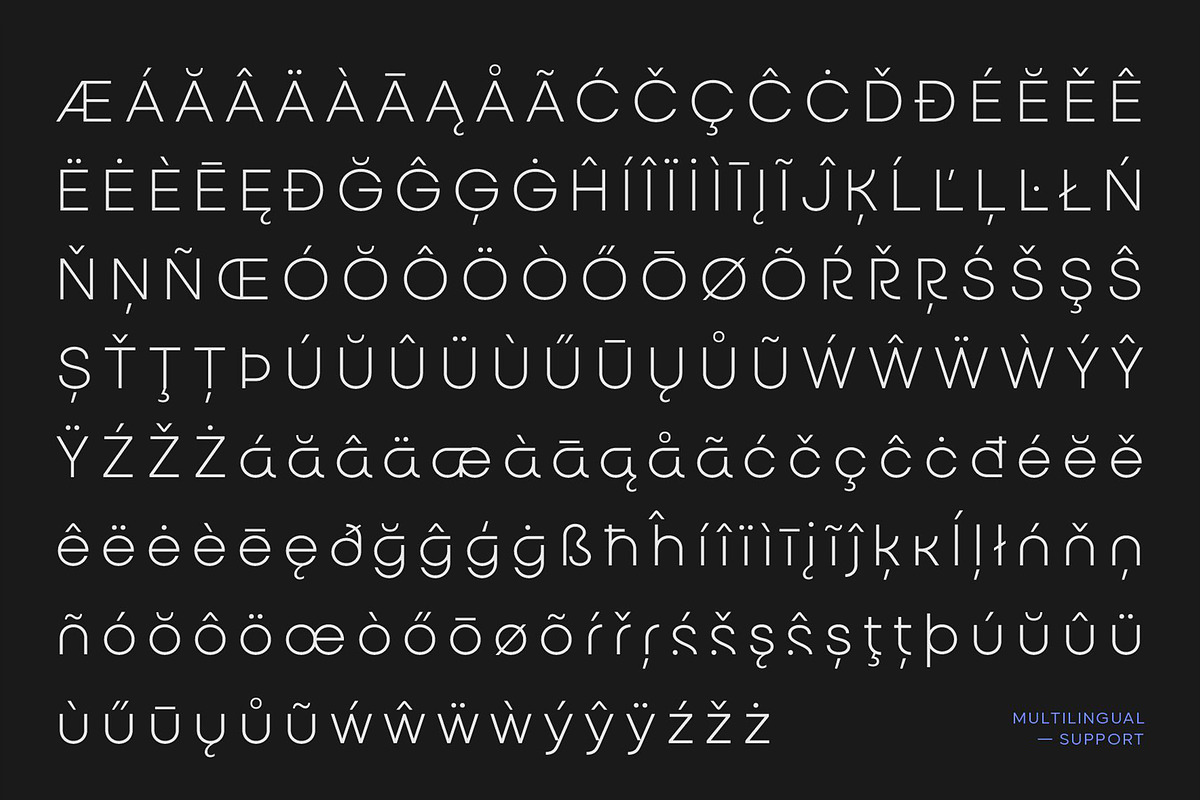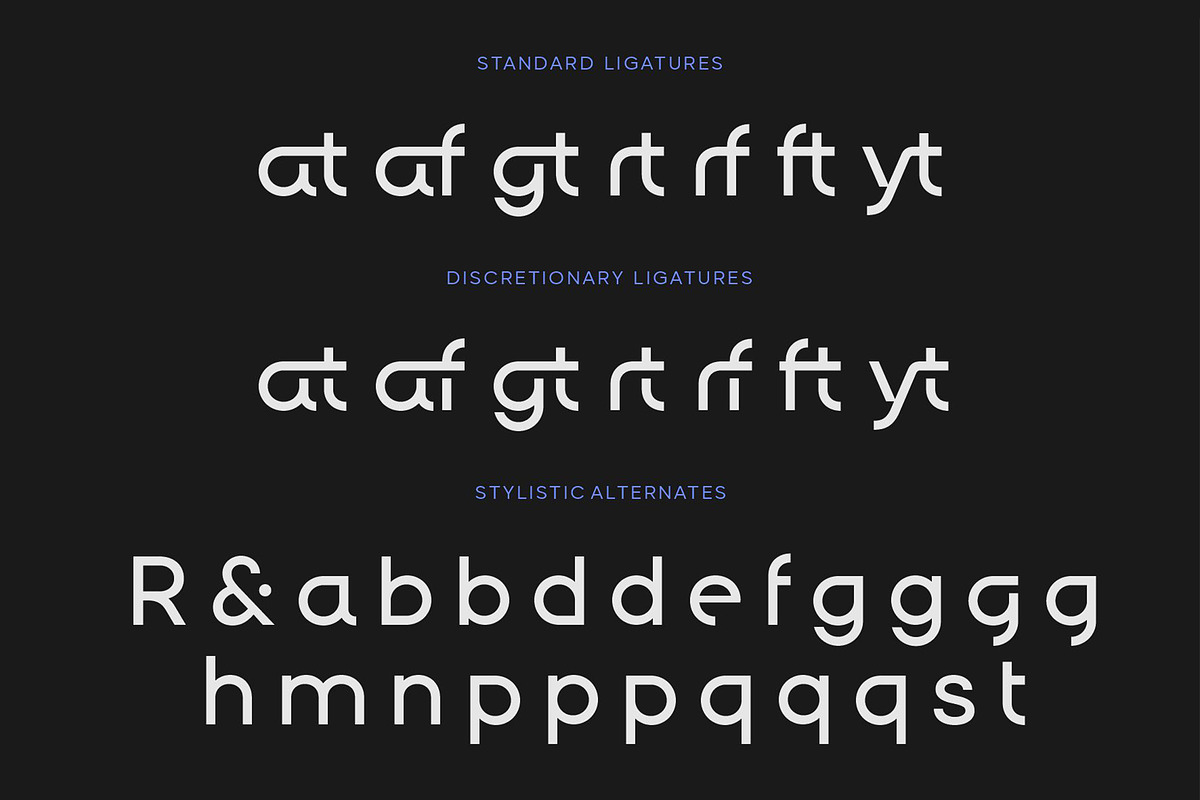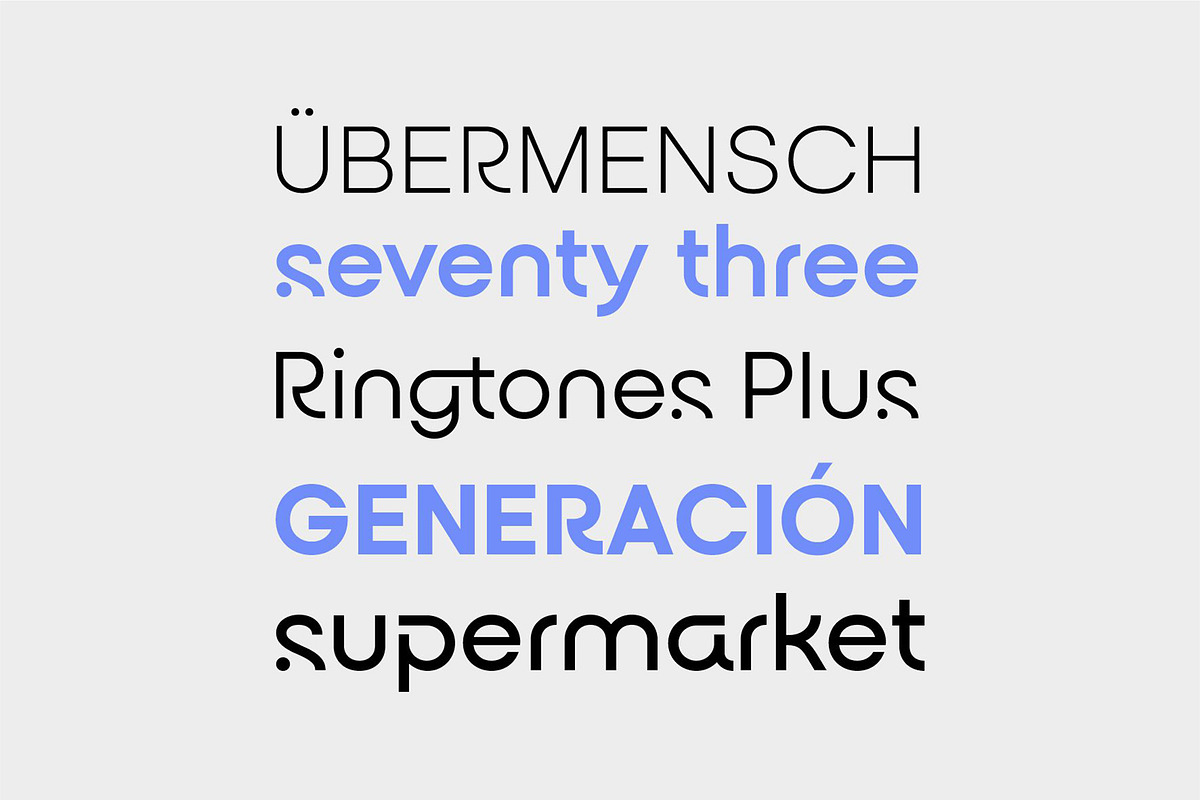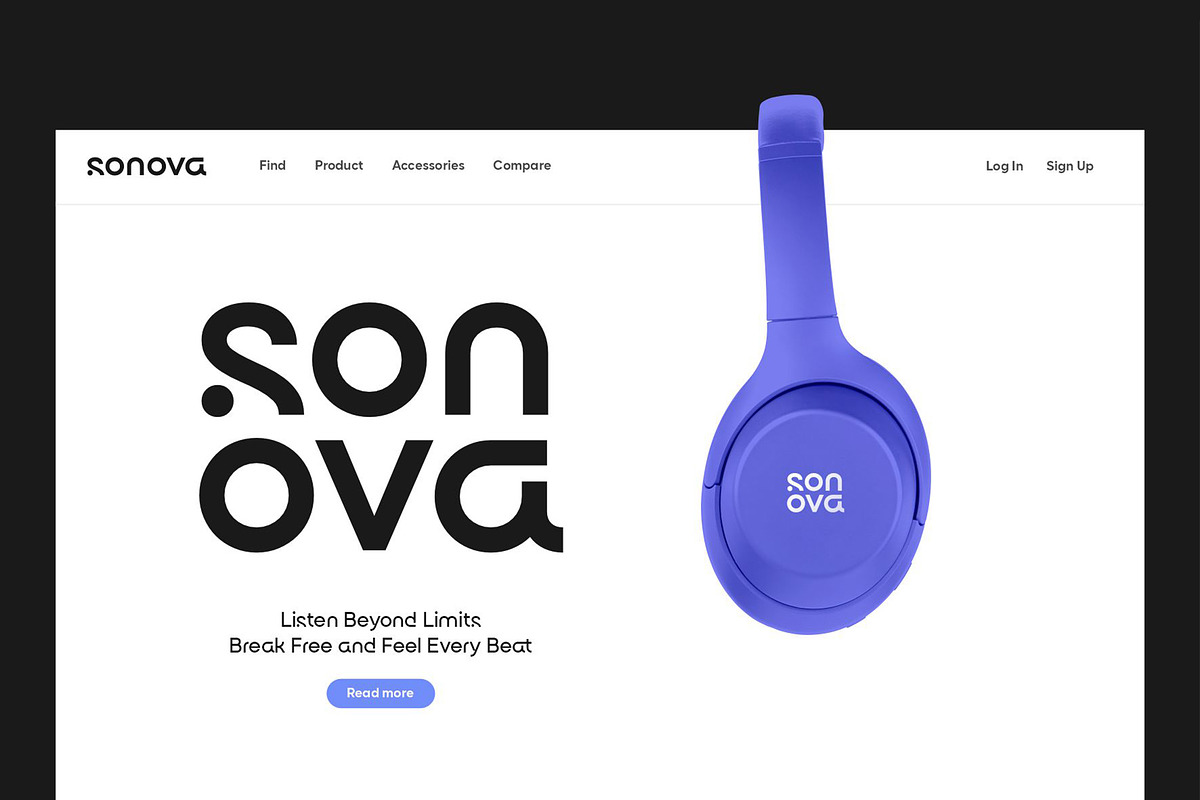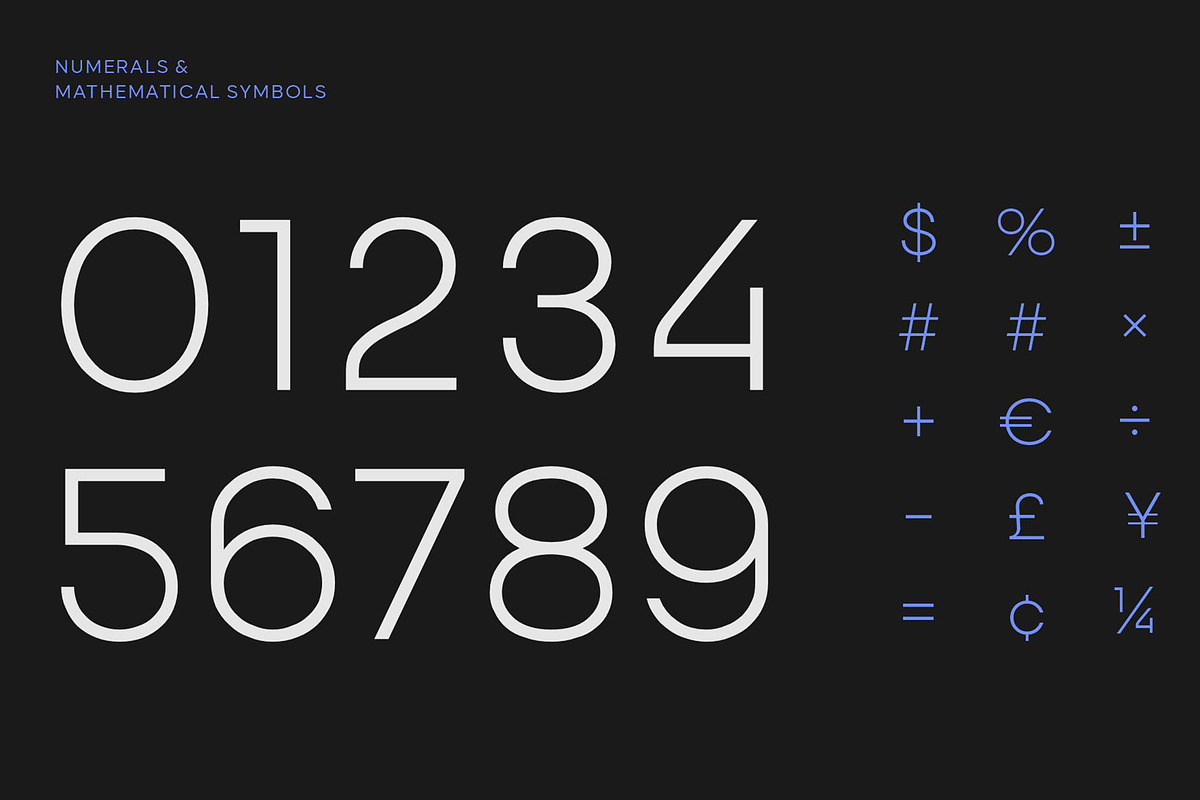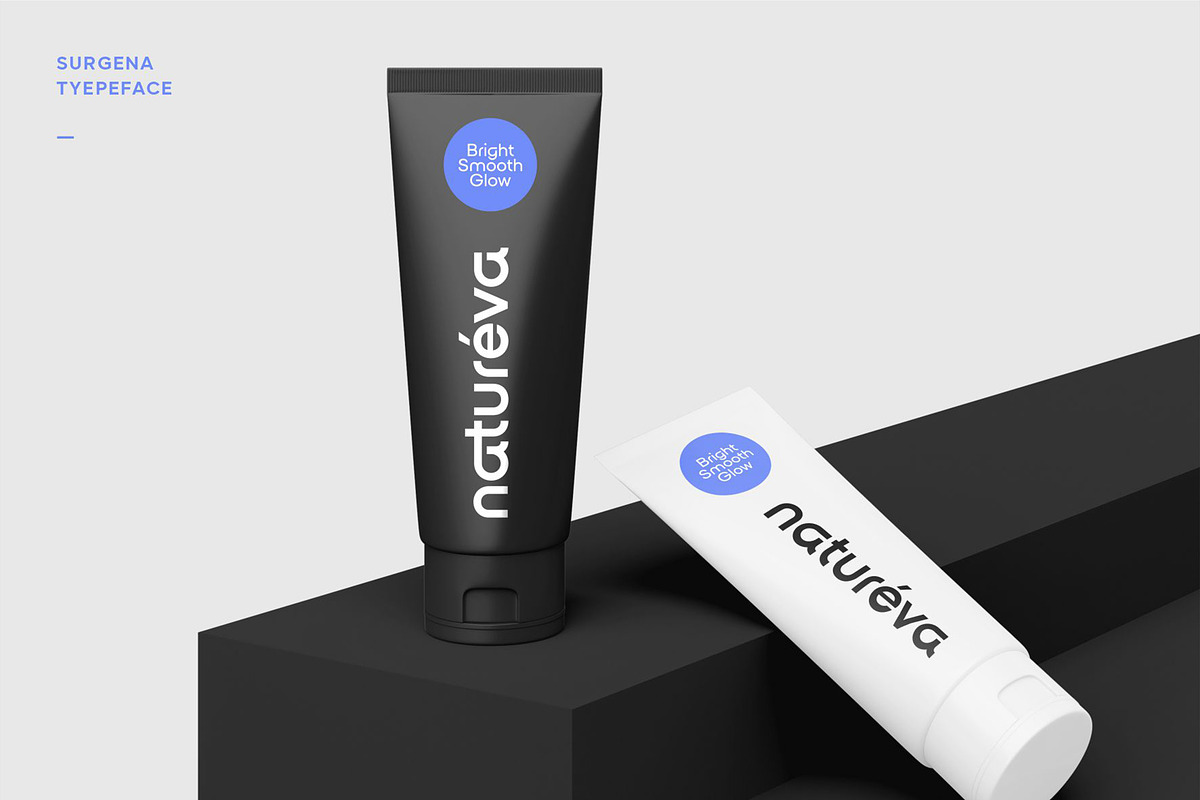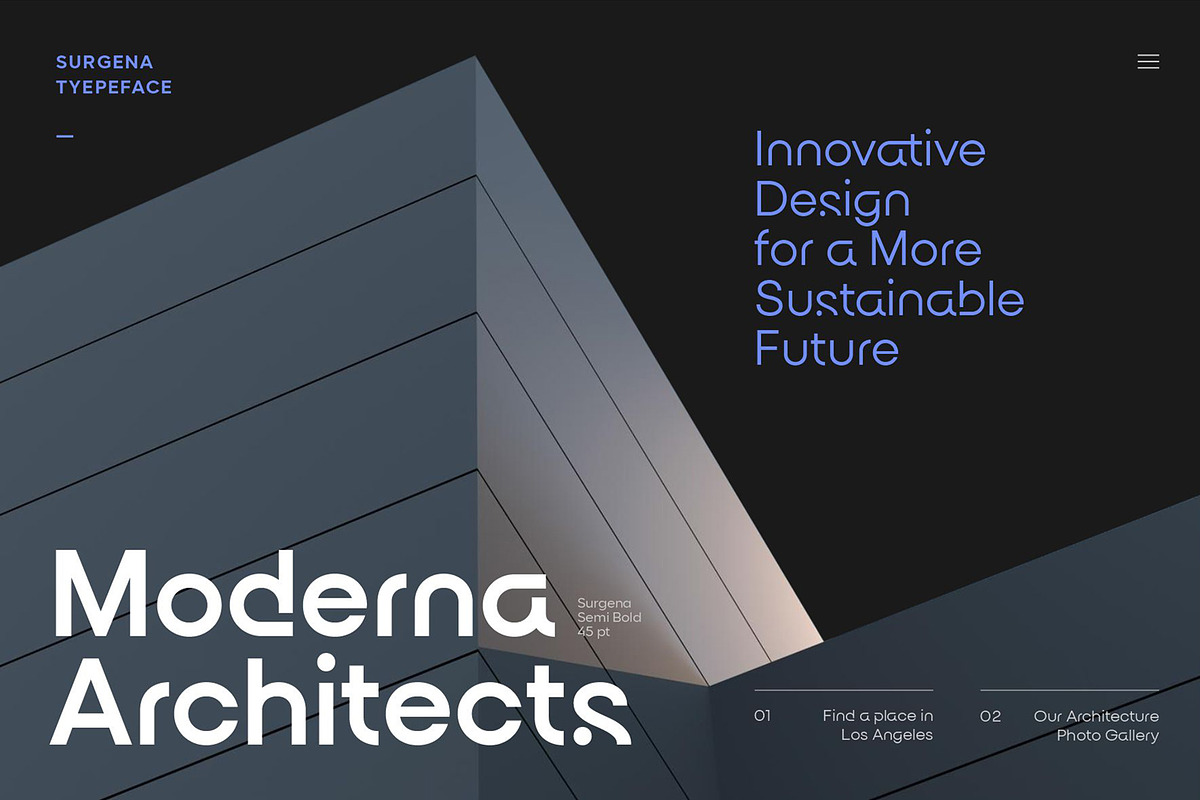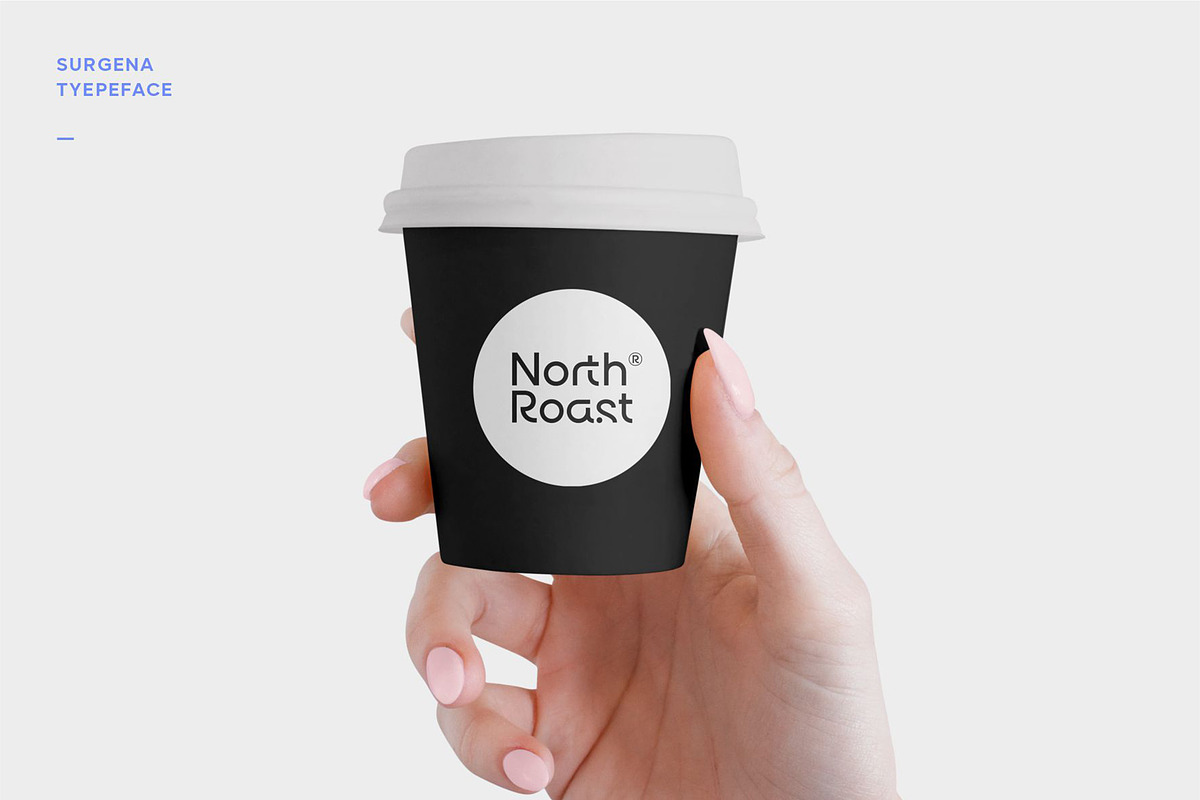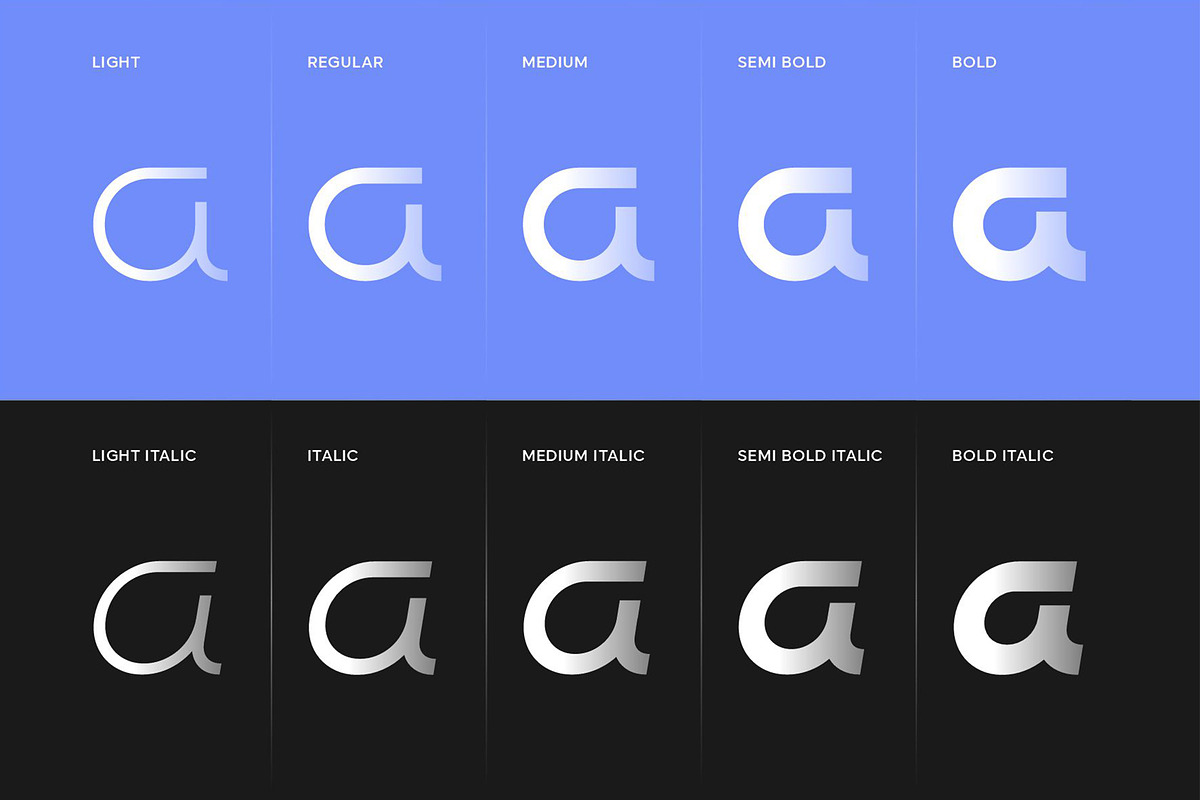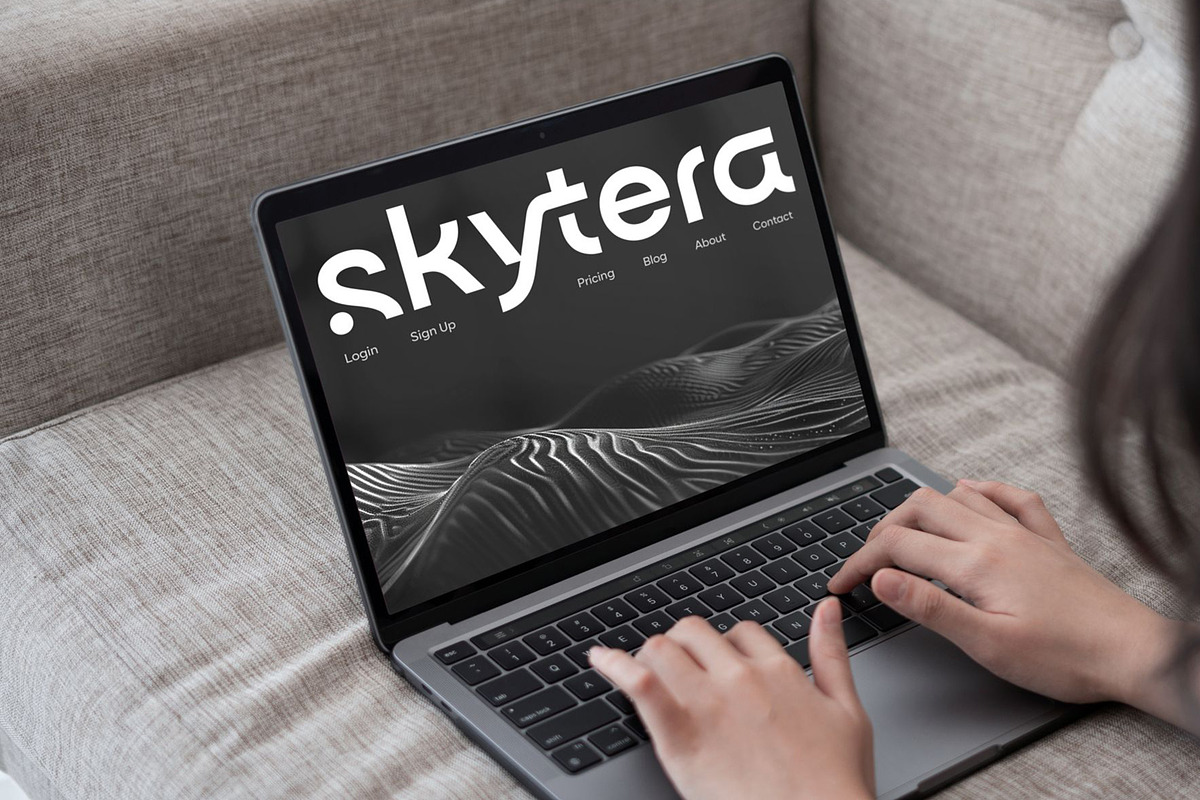
Surgena Font Family
Surgena is a modern sans-serif font combining minimalist elegance and clean, precise geometric shapes. With balanced proportions and refined details, it conveys a professional, innovative, and dynamic feel, making it perfect for branding, editorial, and digital design. Featuring multiple weights, OpenType features, and stylistic alternates, Surgena offers high versatility without compromising readability, making it an ideal choice for projects that require a modern, bold, and sophisticated look.
The features include:
Uppercase and lowercase letters, numerals, punctuation, ligatures, discretionary ligatures, stylistic alternates, multilingual support, PUA encoding, easy installation, and compatibility with both PC and Mac.